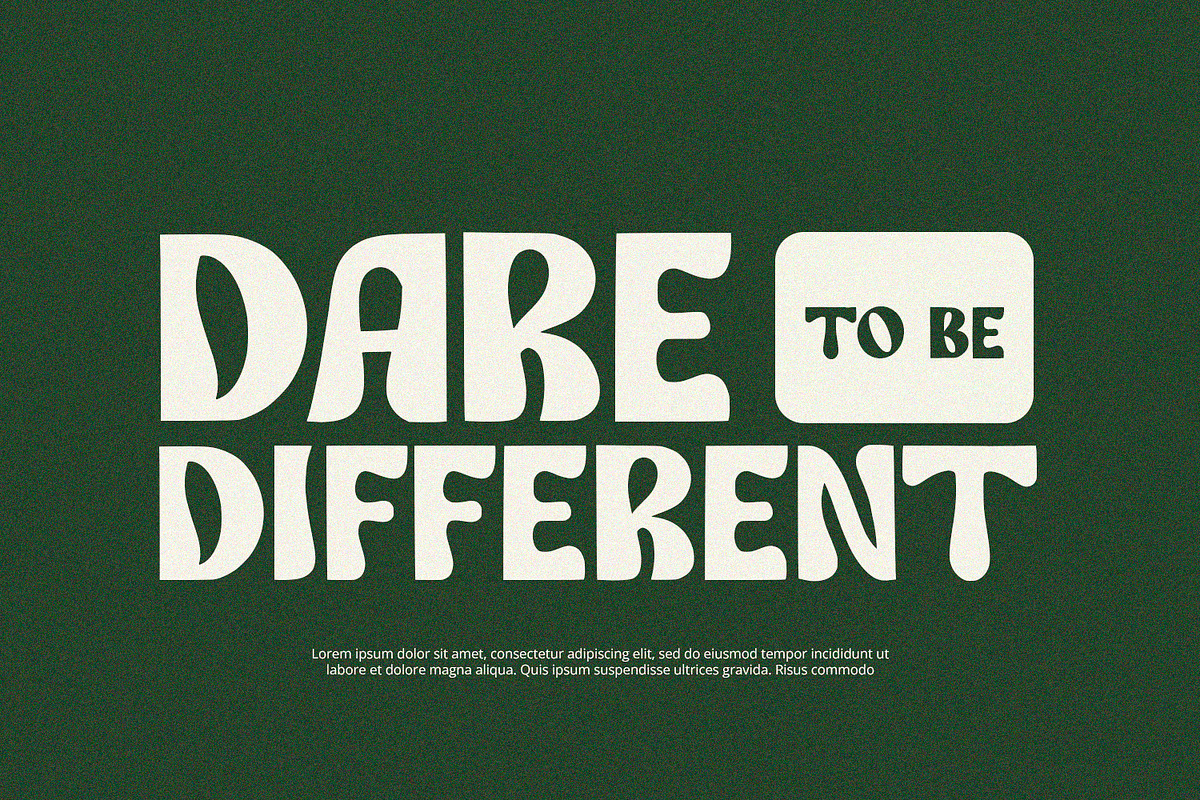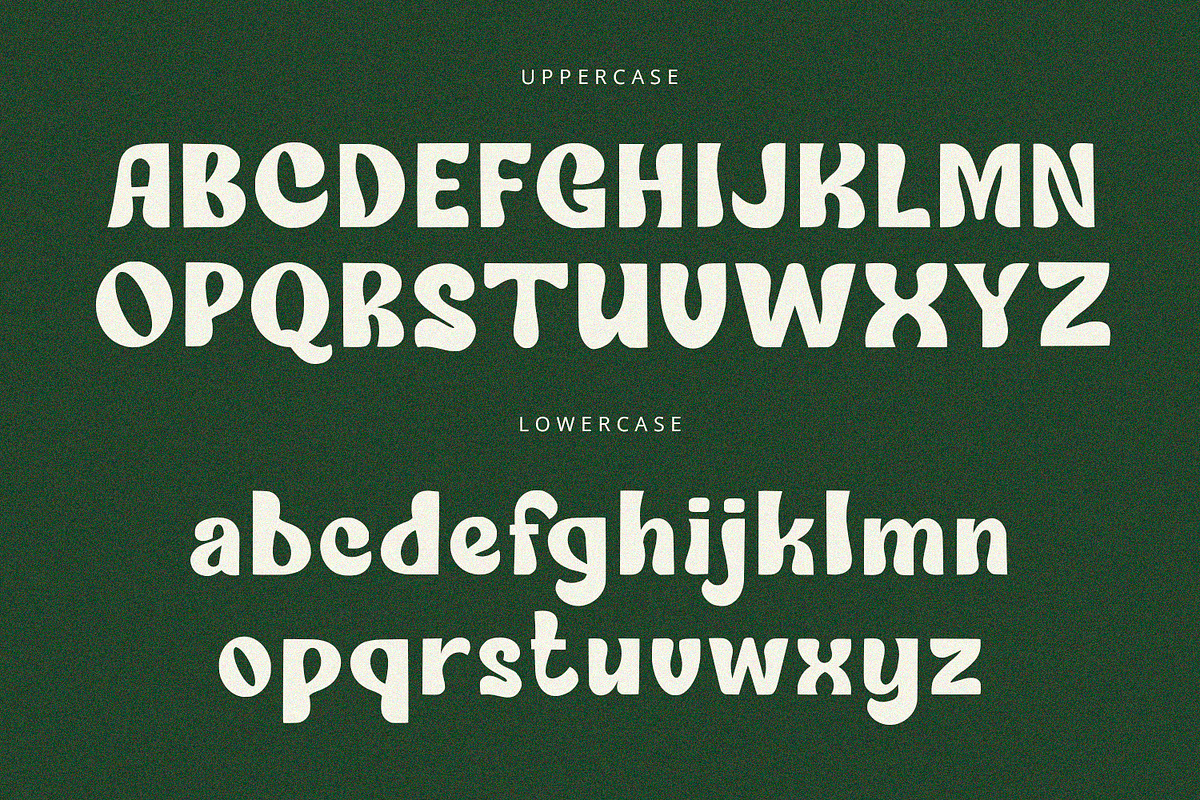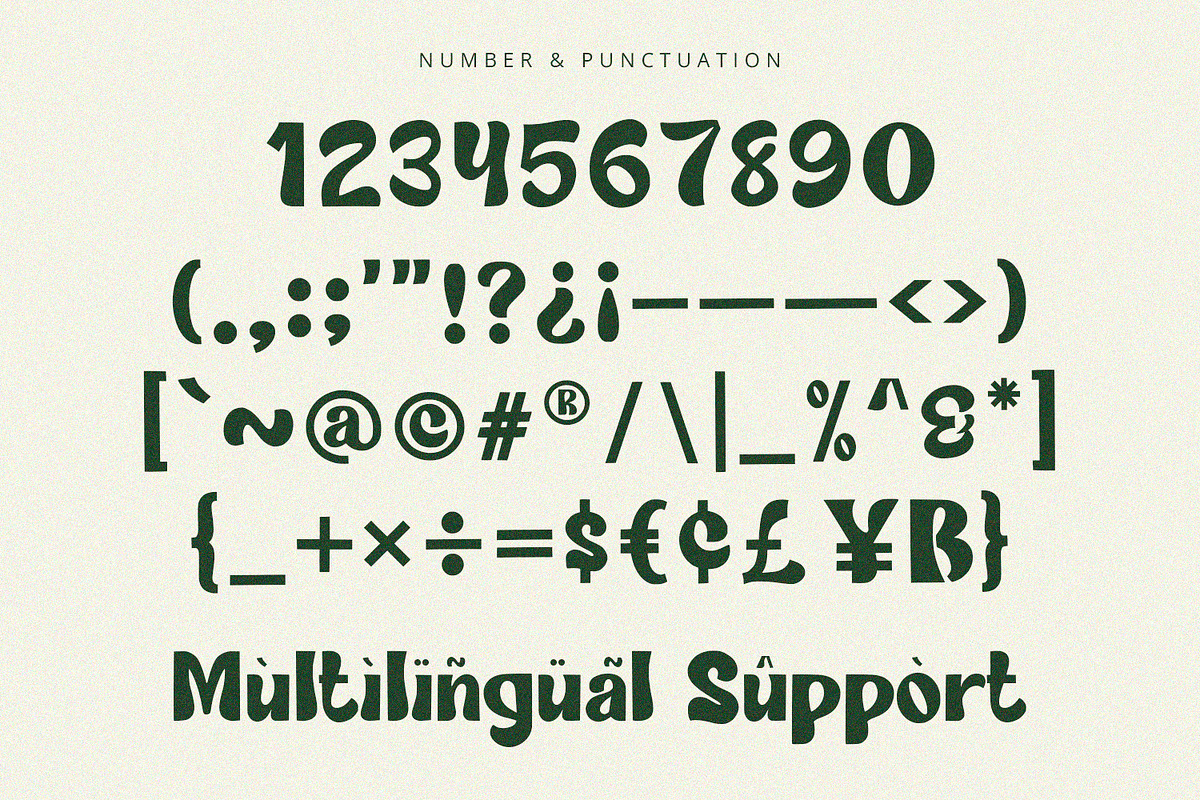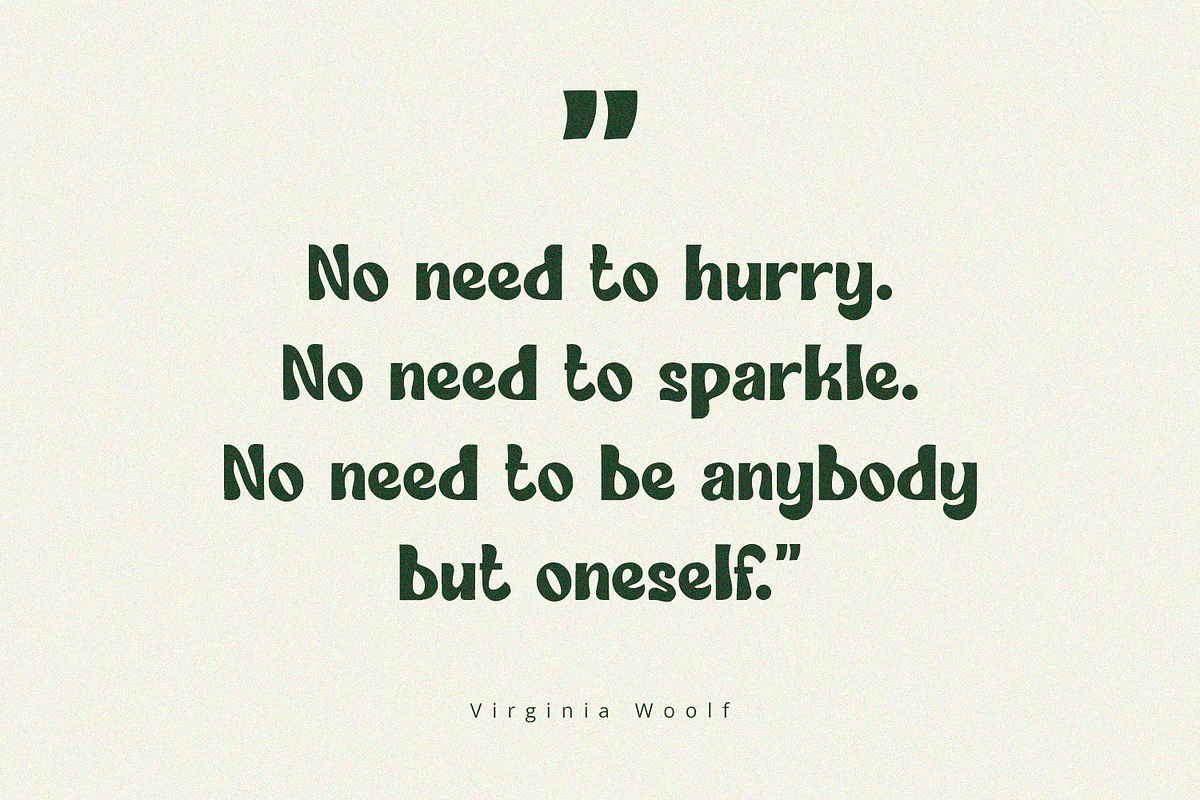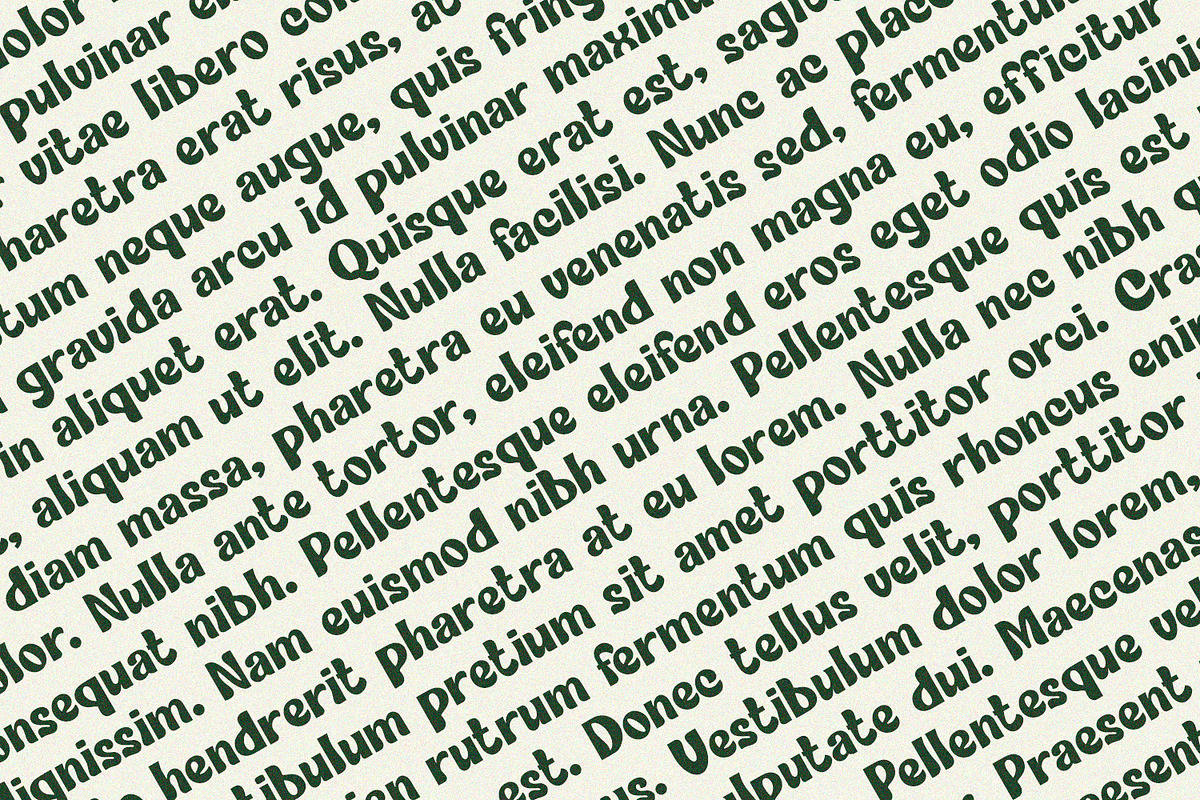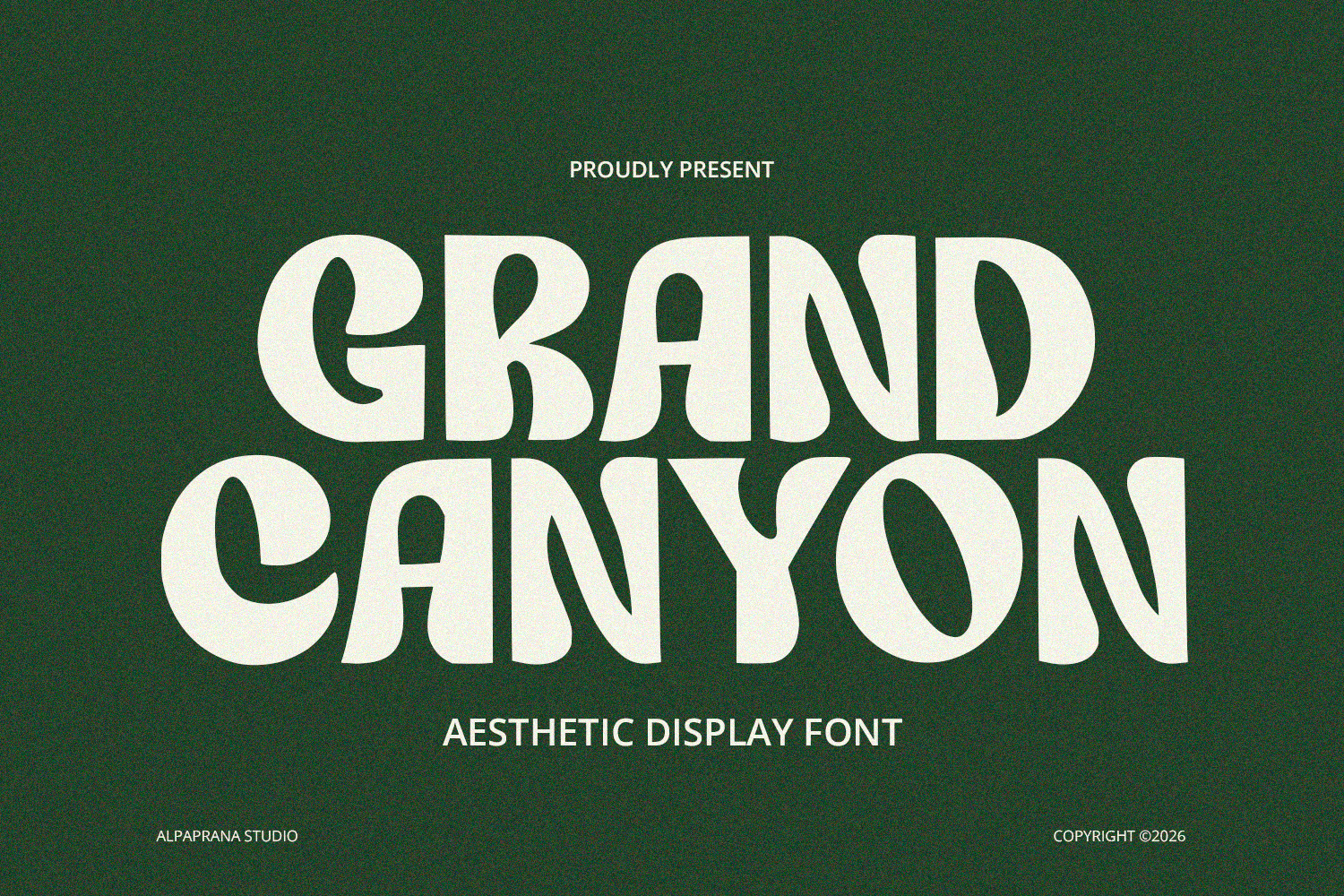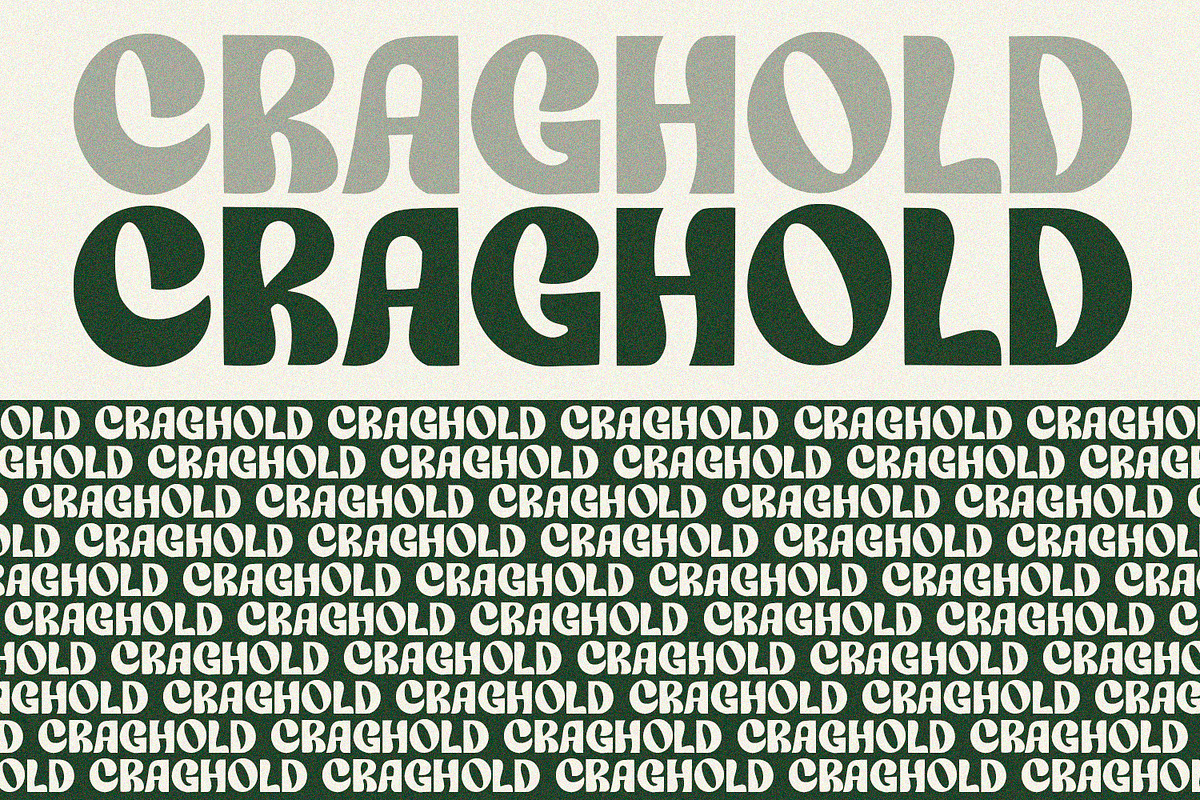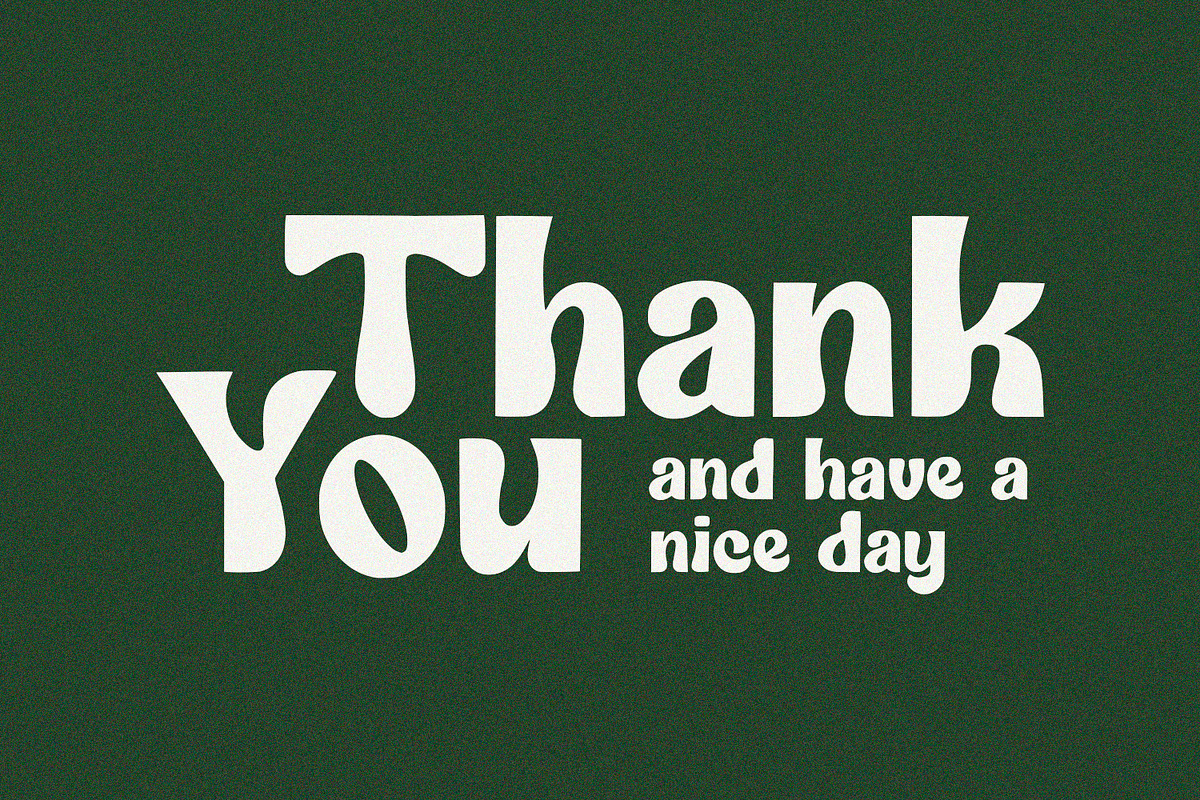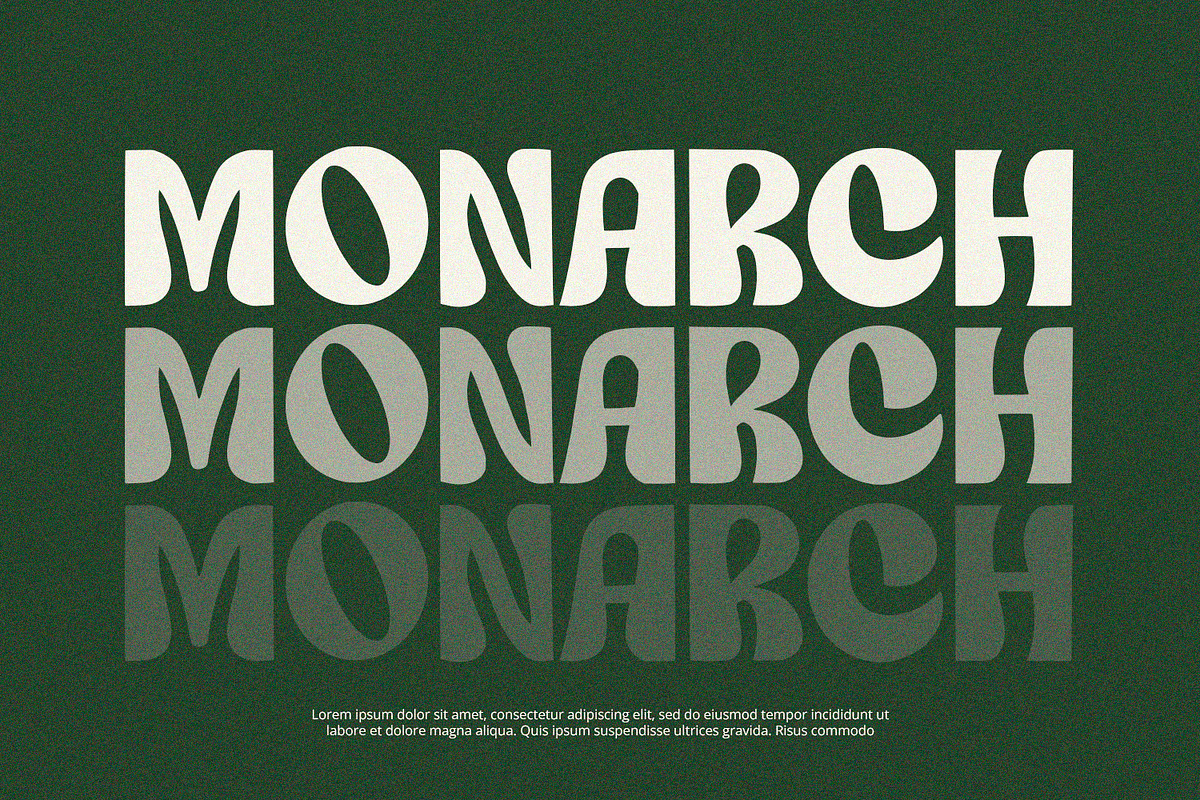
Grand Canyon - Display Font
Grand Canyon is display font with modern feels. It will be perfectly used for Branding, Logo Design, Lettering, Logotype, Clothing, Poster, magazine, packaging, posters, shopping bags, t-shirts, book covers, photography, special events and other design project.